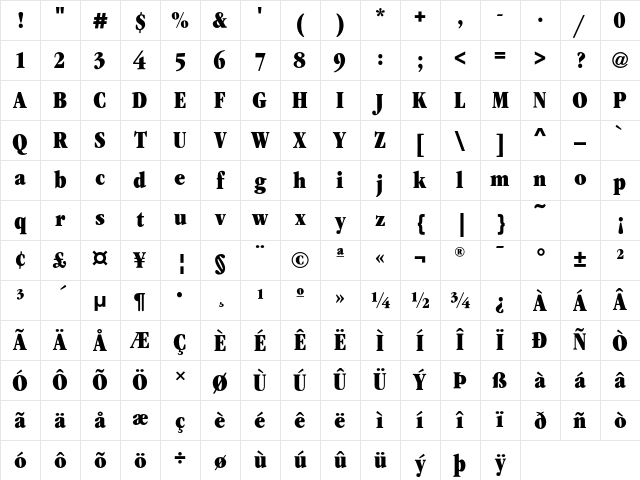
GaramondEF UltraCondensed
Style: UltraCondensed
GaramondEF Family
GaramondEF UltraCondensed
Design Context for GaramondEF
GaramondEF is a composed and adaptable typeface that performs quietly and consistently across a wide range of design contexts. Its narrow stance lets it pack a punch even in space-constrained designs.